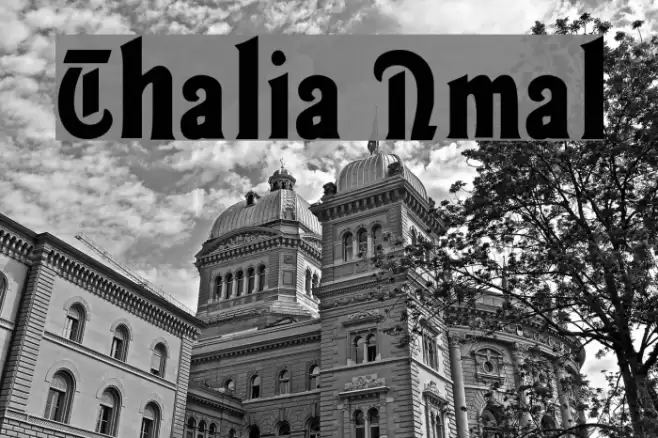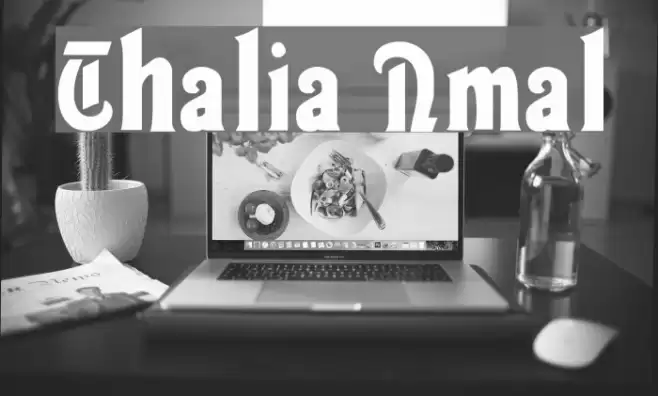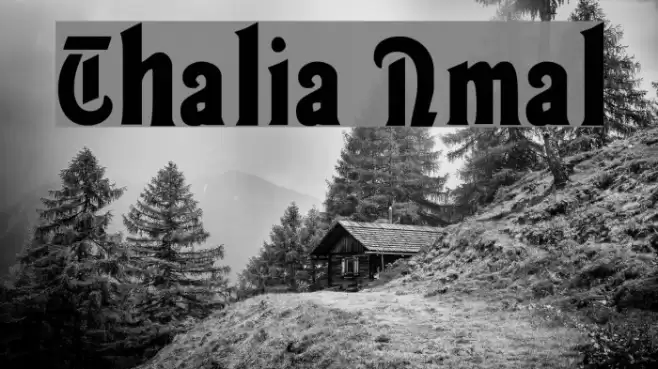
Thalia Normal Font
Thalia Normal Description
This font features a bold and dramatic style with a strong presence. The uppercase letters have a unique, almost theatrical flair with sharp angles and curves that give them a distinctive look. The lowercase letters maintain this boldness while offering a slightly more subdued appearance. The numbers are consistent with the overall style, providing a cohesive look across all characters. Special characters are designed with the same attention to detail, ensuring they fit seamlessly with the rest of the font. This font's striking appearance makes it ideal for projects that require a bold statement.
A bold, dramatic font with sharp angles and a theatrical flair from Gothic fonts.
- Proposed Projects: Ideal for posters, headlines, logos, and branding materials that require a strong visual impact.
- Contrast: High